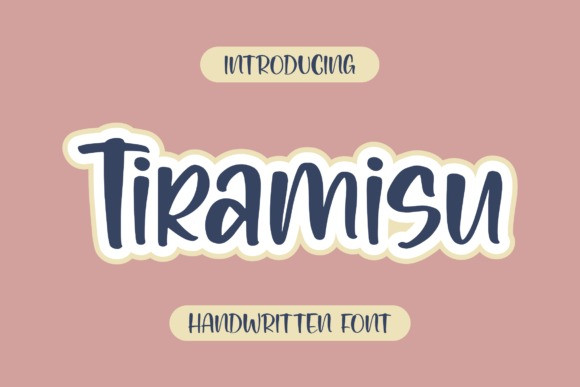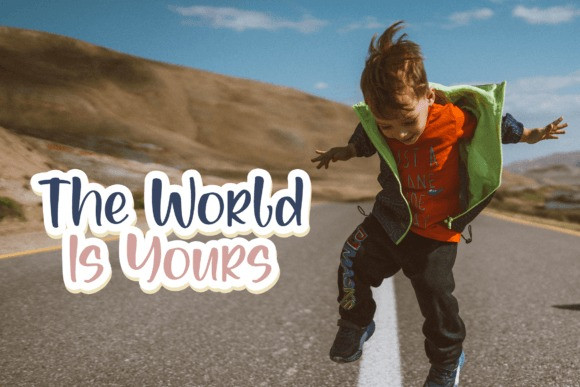
Tiramisu Font
Tiramisu – Handwritten Font suitable for any projects such as logos, branding projects, homeware designs, product packaging, mugs, quotes, posters, shopping bags, t-shirts, book covers, name cards, invitation cards, greeting cards, labels, photography, watermark, special events, and all your other lovely projects that need a beautiful script taste.